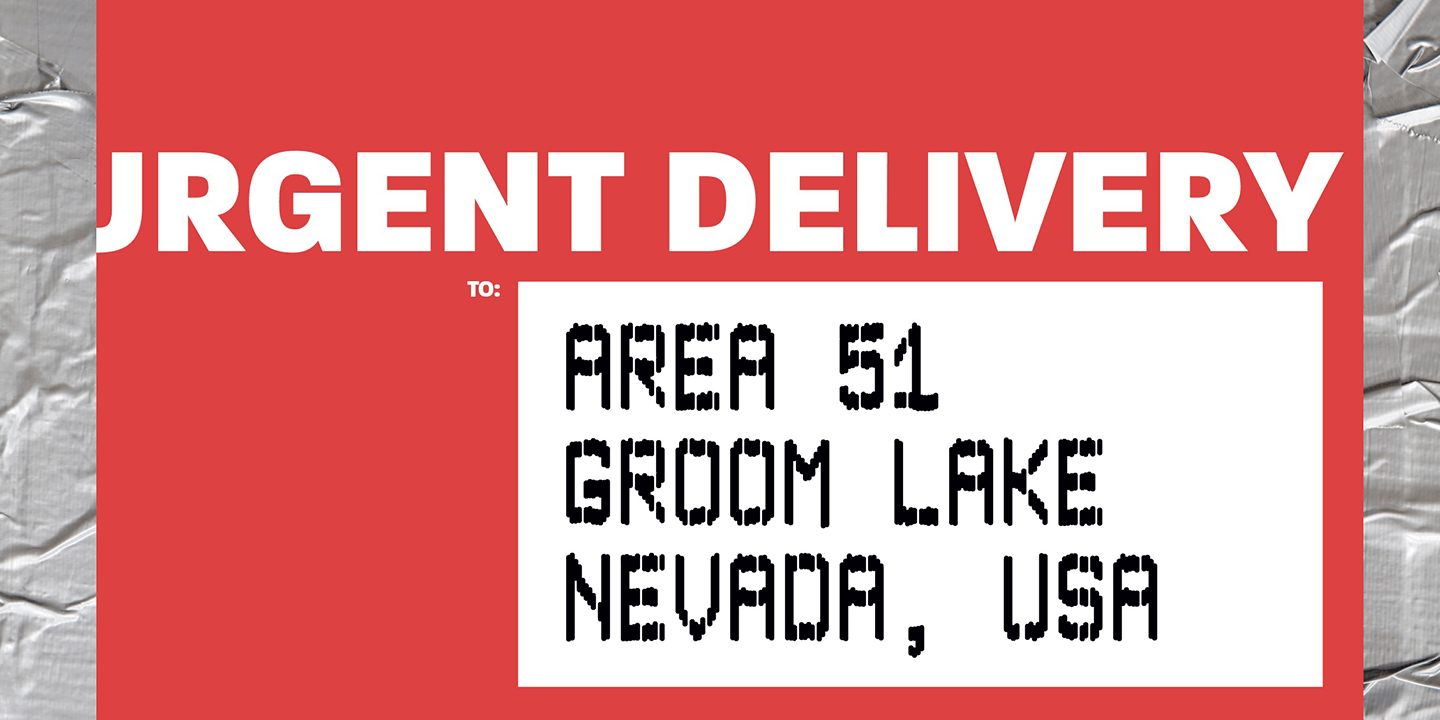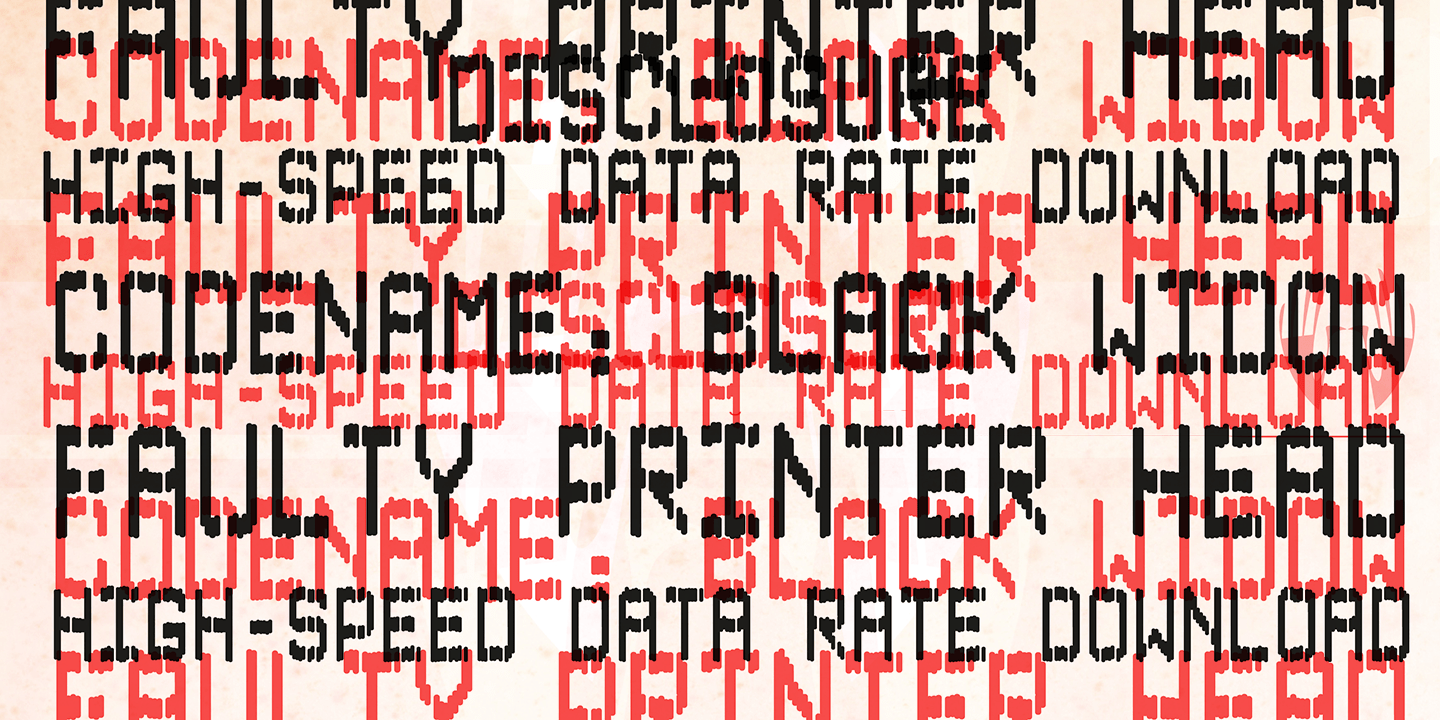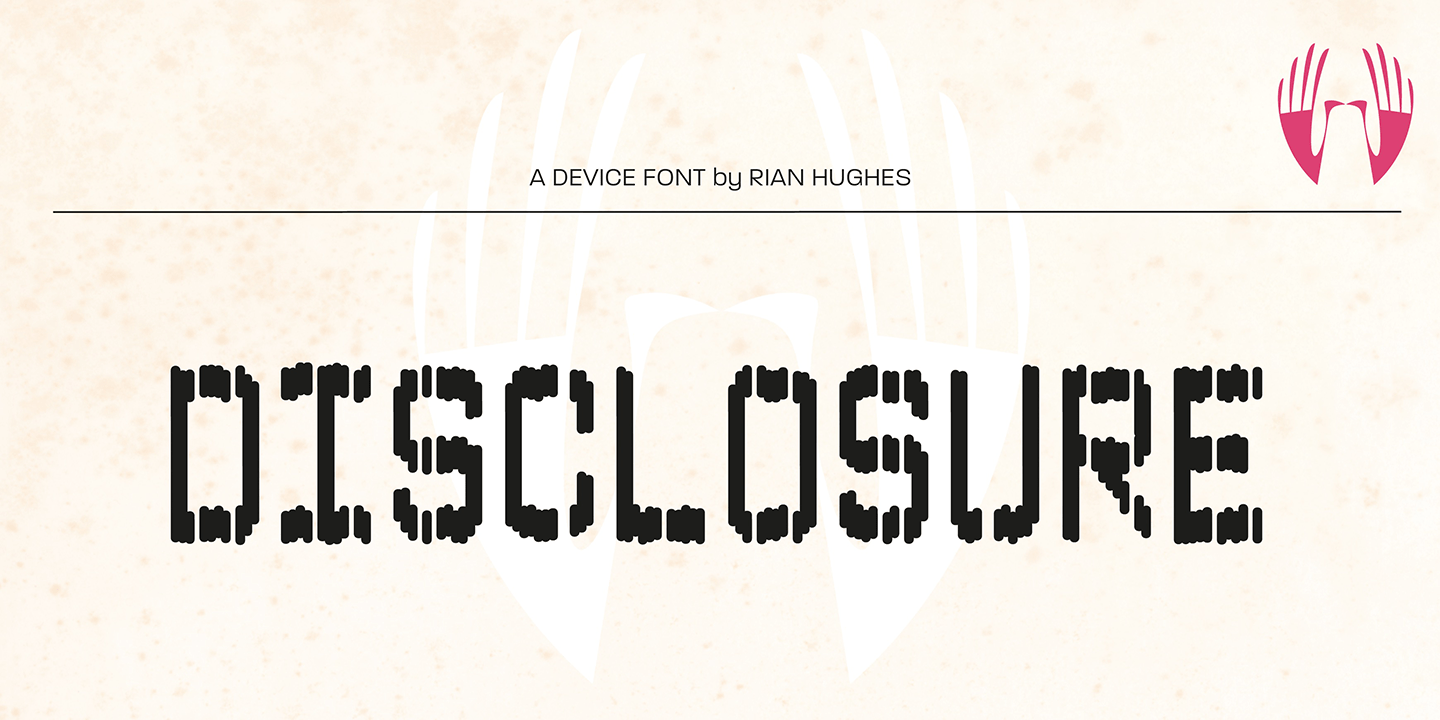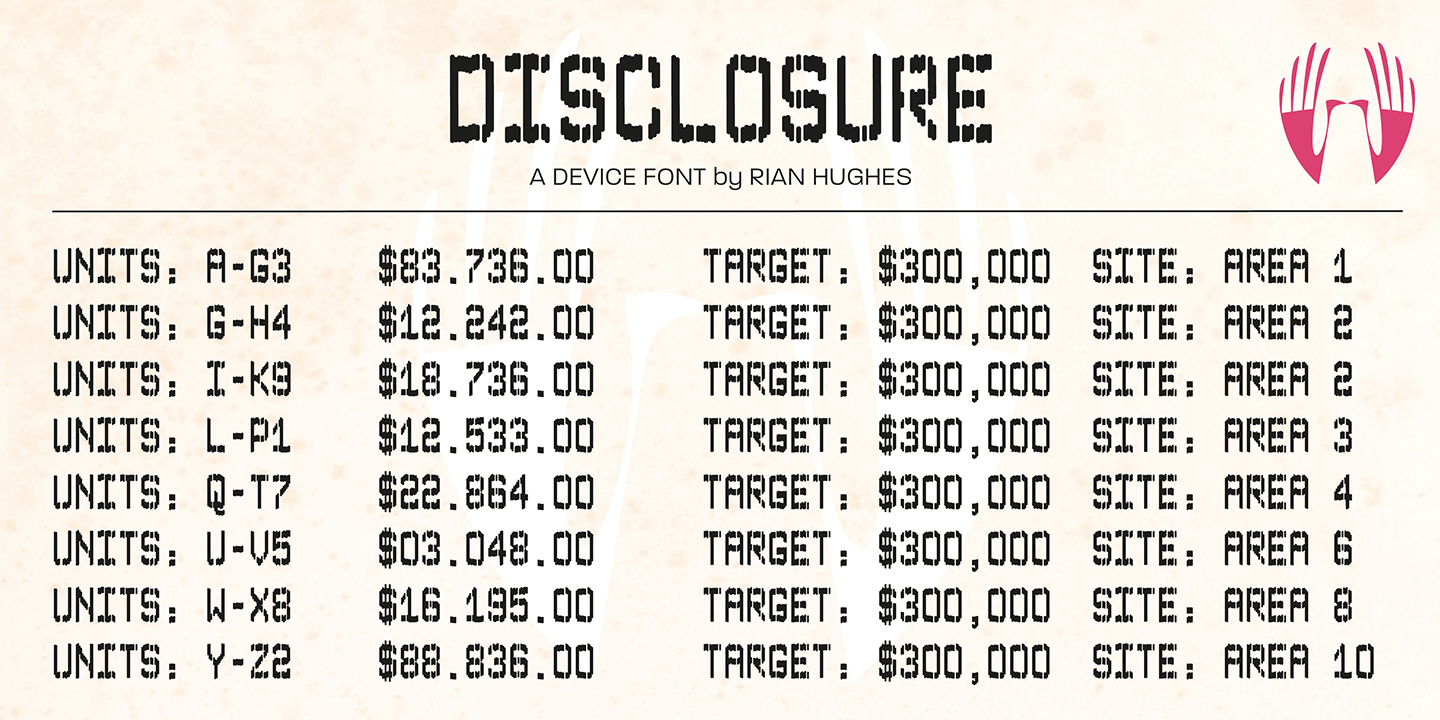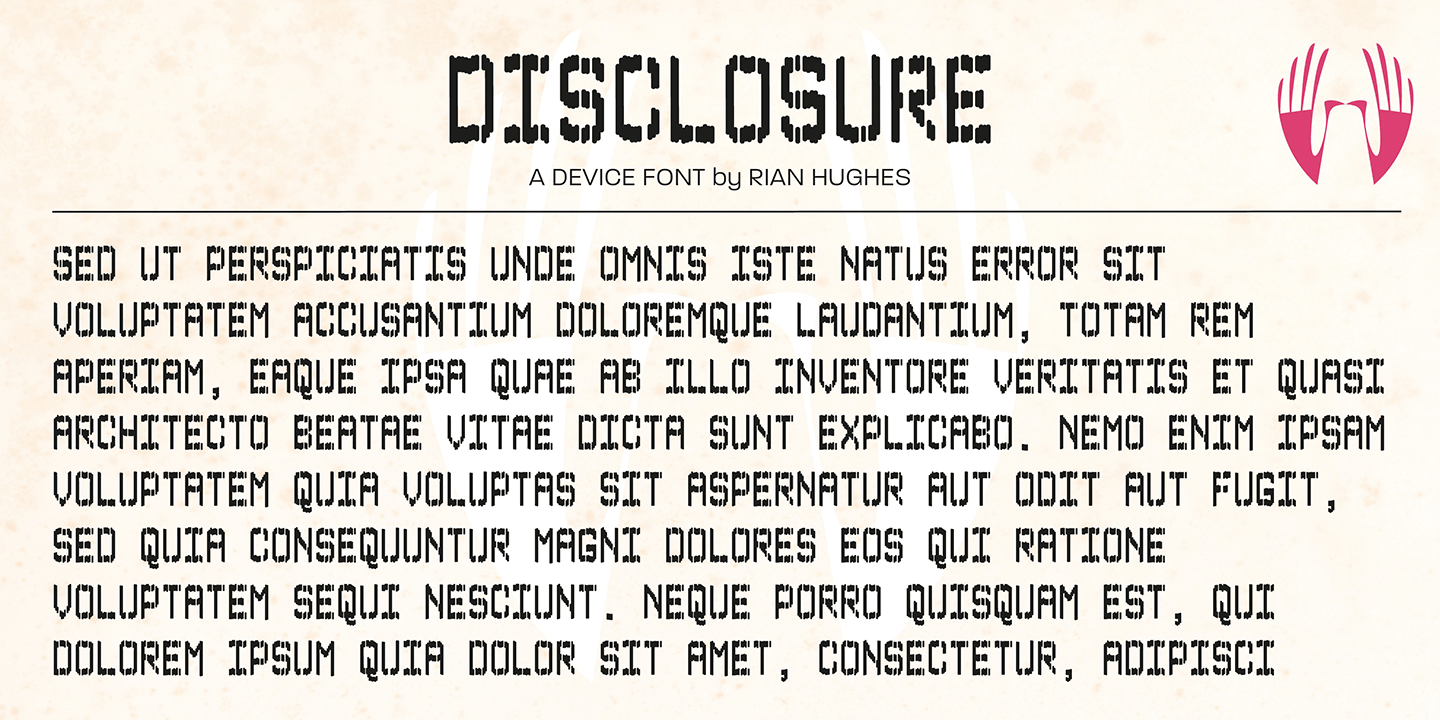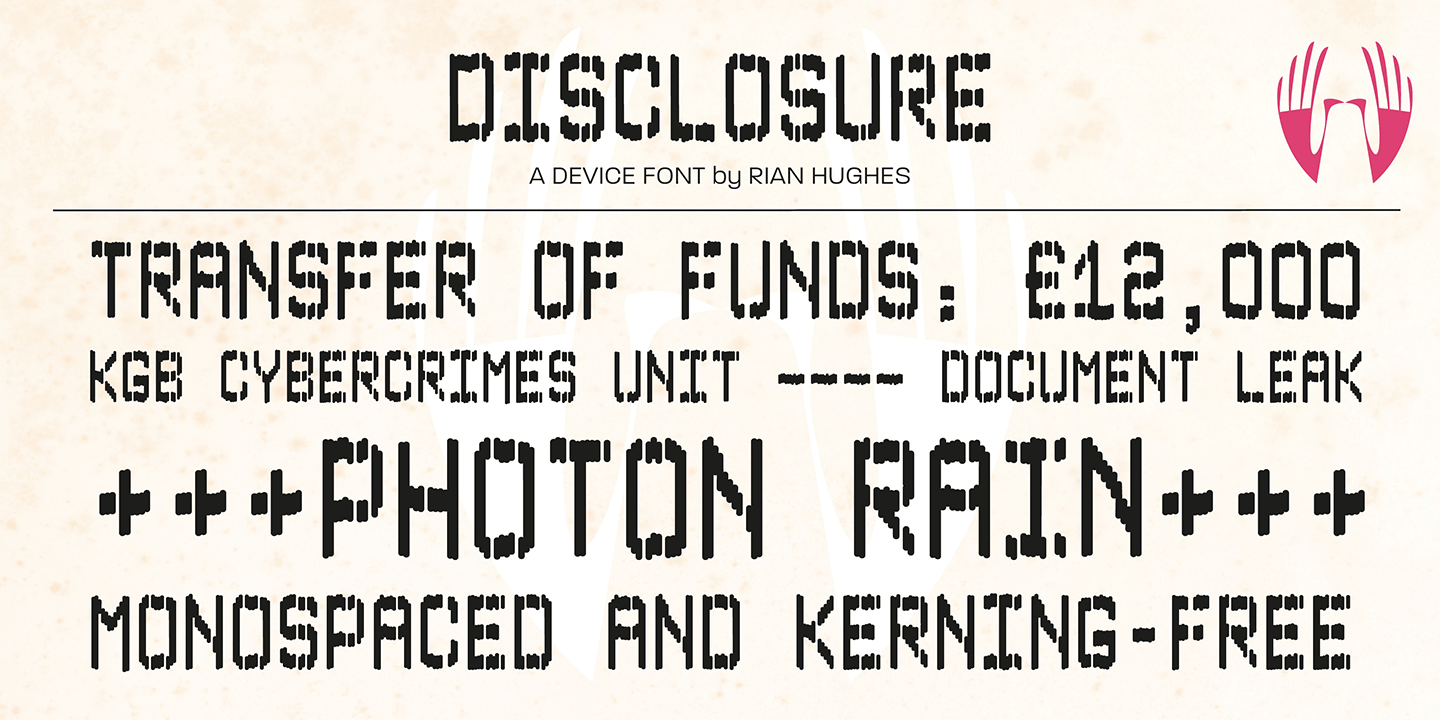
Disclosure
Font Family by Device Fonts
Disclosure is suggestive of low-grade digital output, screen displays, fax machines, or high-speed data transfer. It is missing vertical sections, perhaps due to a faulty print head or signal degradation. It is intentionally monospaced — each letter has the same width, like a typewriter — and unkerned. Suitable for uses where an unfussy urgency and drama is required. Developed from the 112 Hours numbers-only font, Throughput.